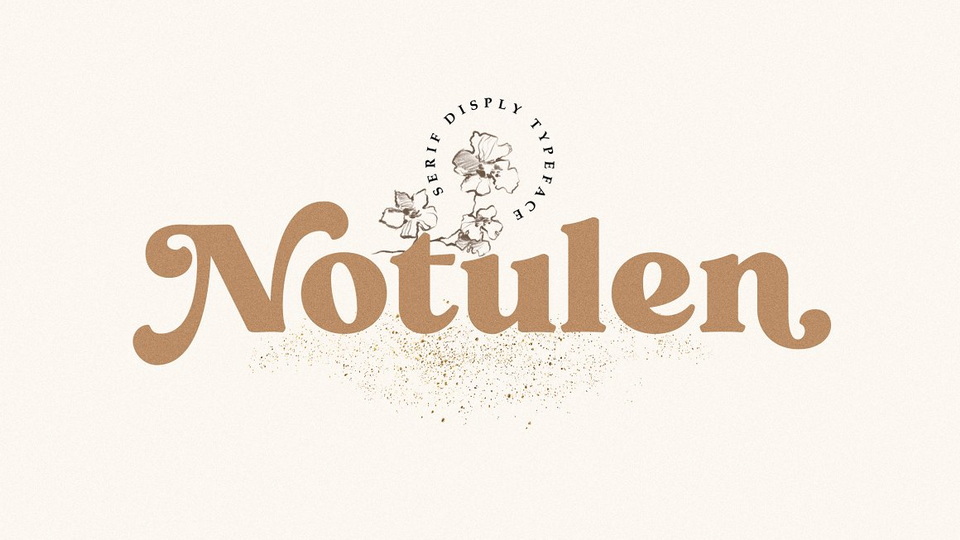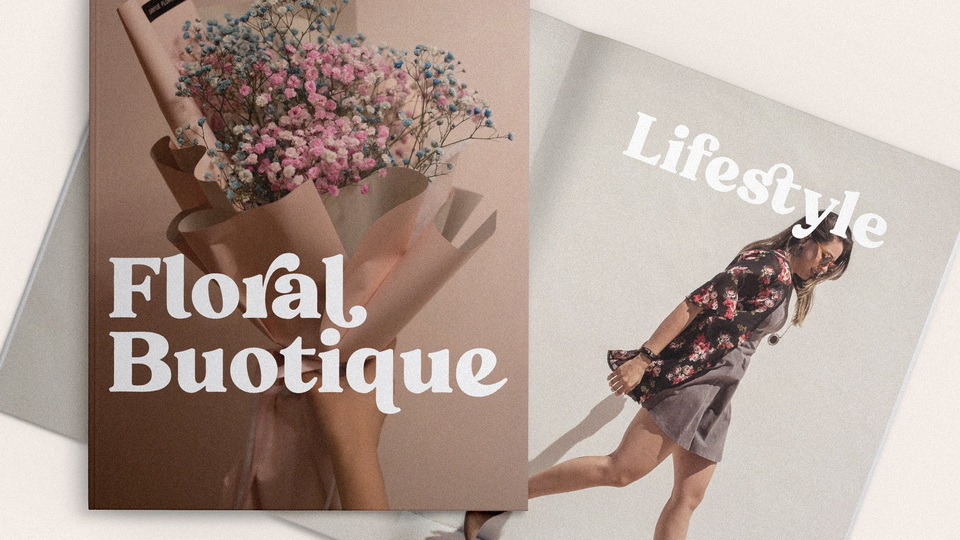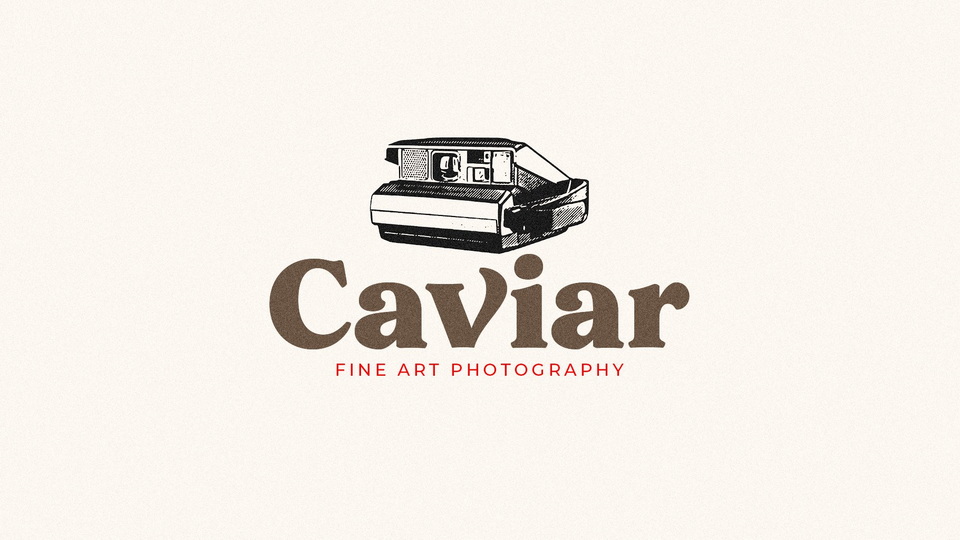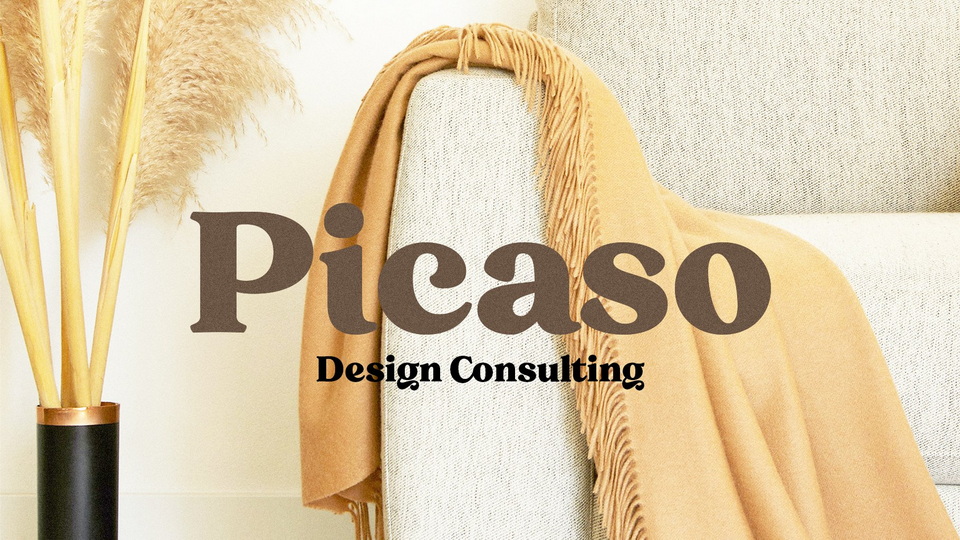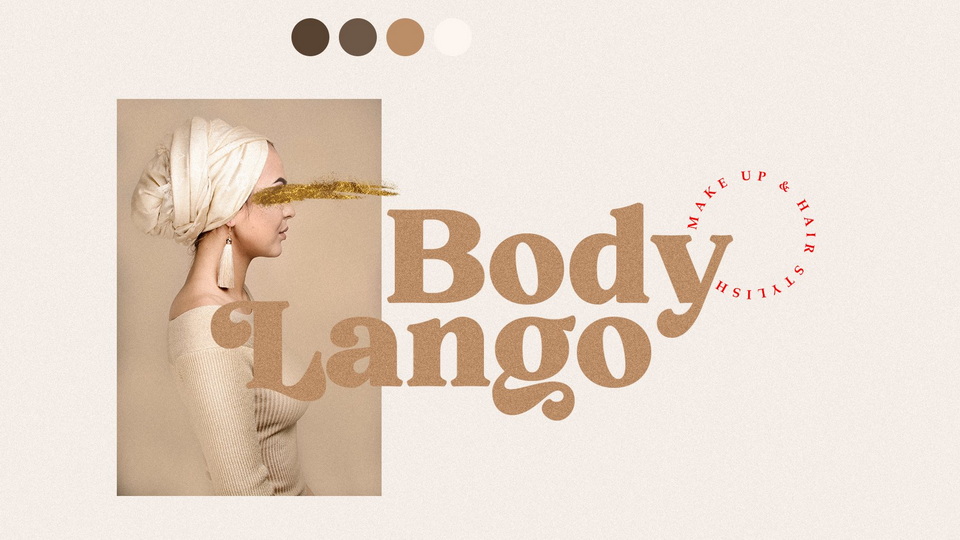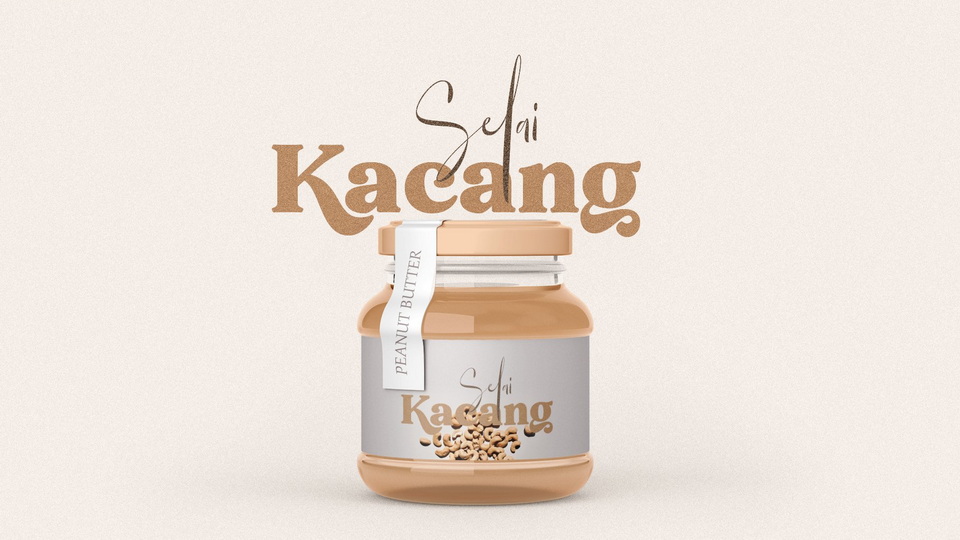
Notulen is a display serif typeface with an extra bold style and nicely balanced curves. Notulen is inspired by classic typography and now come with modern serif nuance. Short serifs with slightly rounded corners make this font legible at small points.
Having several alternative letter variations makes it easy to work on all design projects and works perfectly for logos, headlines, posters, packaging, t-shirts, postcards, invitation, wedding sign, sign painting, signboard, and much more.